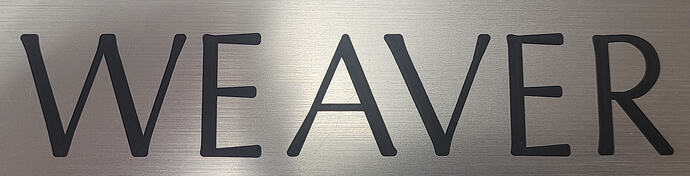
It looks like a slightly modified version of the font Columbia Serial. The vertices are rounder than those of Columbia Serial, perhaps because it was mechanically cut in the metal.